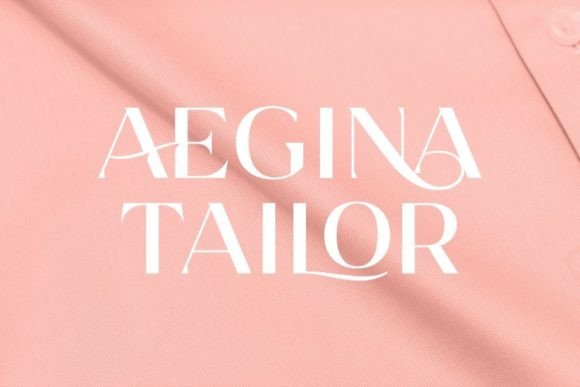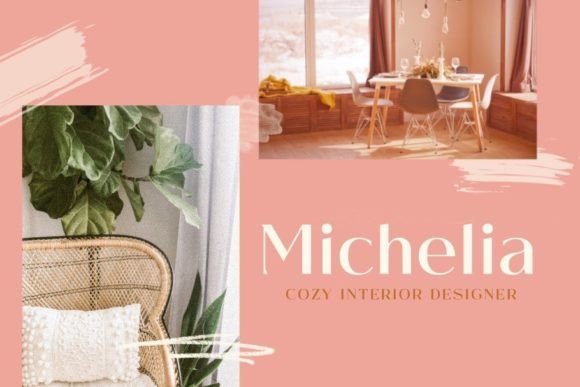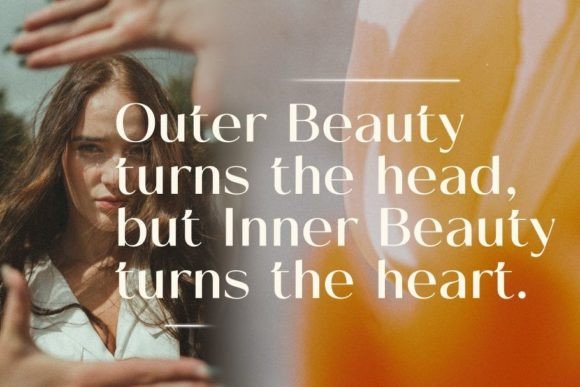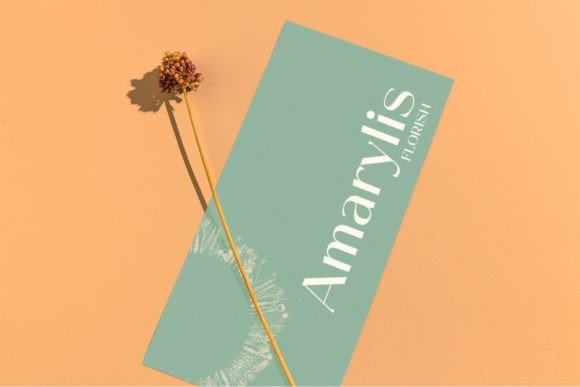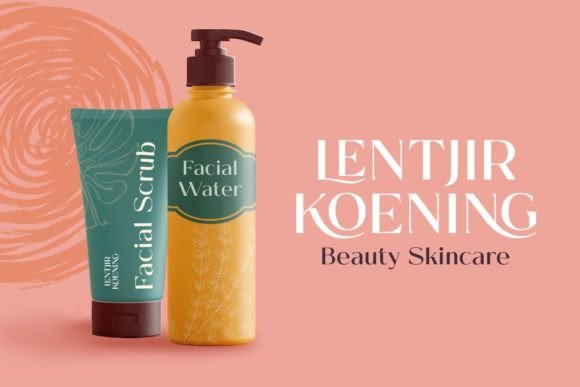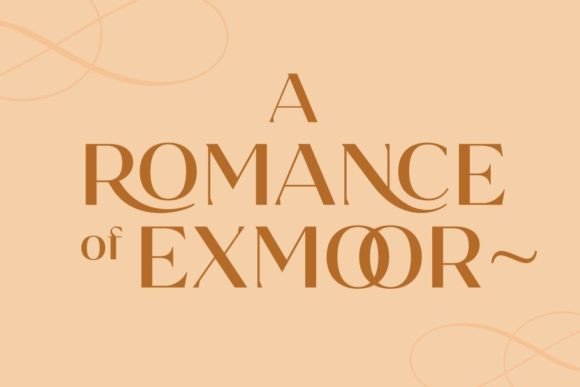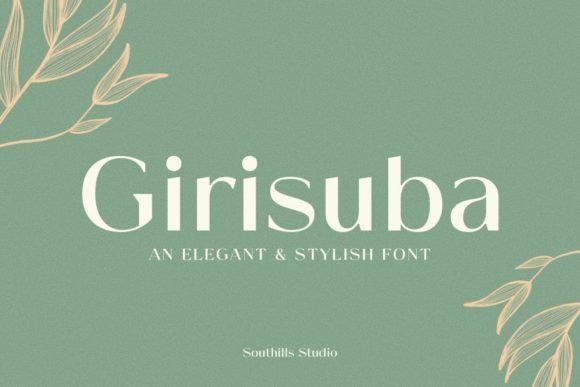
Girisuba Font: Elevate Your Designs with Modern Elegance
In the world of typography, fonts play a crucial role in conveying the message and aesthetic of a design. For designers and crafters seeking a modern, stylish, and versatile font, Girisuba is an excellent choice. This beautiful modern sans font, with a hint of serif, is designed to make your projects stand out with its high contrast and smooth geometric characteristics.
What Makes Girisuba Font Special?
Girisuba’s main feature is its high contrast, which gives it a unique and stylish appearance. The font combines the clean lines of a sans-serif with the subtle elegance of a serif, making it perfect for a wide range of design applications. Its smooth and geometric design ensures that it remains neutral and modern, allowing it to blend seamlessly with any project.
Key Features of Girisuba Font
• High Contrast: The font’s high contrast gives it a distinctive and sophisticated look, making it ideal for designs that require a touch of elegance.
• Smooth and Geometric: Girisuba’s smooth and geometric design ensures that it remains stylish and modern, while also being easy to read.
• Neutral Appearance: The font’s neutral appearance makes it versatile and suitable for a wide range of design applications, from packaging designs to logotypes.
Girisuba font is perfect for various design applications, including:
• Packaging Designs: The font’s modern and stylish appearance makes it ideal for packaging designs that require a touch of elegance.
• Headlines: Girisuba’s high contrast and smooth design make it perfect for headlines that require a bold and attention-grabbing font.
• Posters: The font’s stylish and modern appearance makes it suitable for posters that require a font that can grab attention.
• Logotypes: Girisuba’s unique and elegant design makes it perfect for logotypes that require a font that can convey a brand’s message.
Why Choose Girisuba Font?
There are several reasons why designers and crafters should choose Girisuba font for their projects:
• Versatility: The font’s neutral appearance and high contrast make it suitable for a wide range of design applications.
• Elegance: Girisuba’s smooth and geometric design gives it a stylish and elegant appearance that can elevate any design.
• Readability: The font’s smooth design ensures that it remains easy to read, even at small sizes.
Tips for Using Girisuba Font
Here are some tips for using Girisuba font effectively in your designs:
• Pair with Other Fonts: Girisuba font can be paired with other fonts to create a unique and stylish typography.
• Experiment with Sizes: The font’s smooth design ensures that it remains easy to read at various sizes, so experiment with different sizes to find the one that works best for your design.
• Use for Headlines and Titles: Girisuba font is perfect for headlines and titles that require a bold and attention-grabbing font.
In conclusion, Girisuba font is a beautiful modern sans font with a hint of serif that can elevate any design. Its high contrast, smooth geometric characteristics, and neutral appearance make it perfect for a wide range of design applications. With its versatility, elegance, and readability, Girisuba font is an excellent choice for designers and crafters seeking a stylish and modern font for their projects.